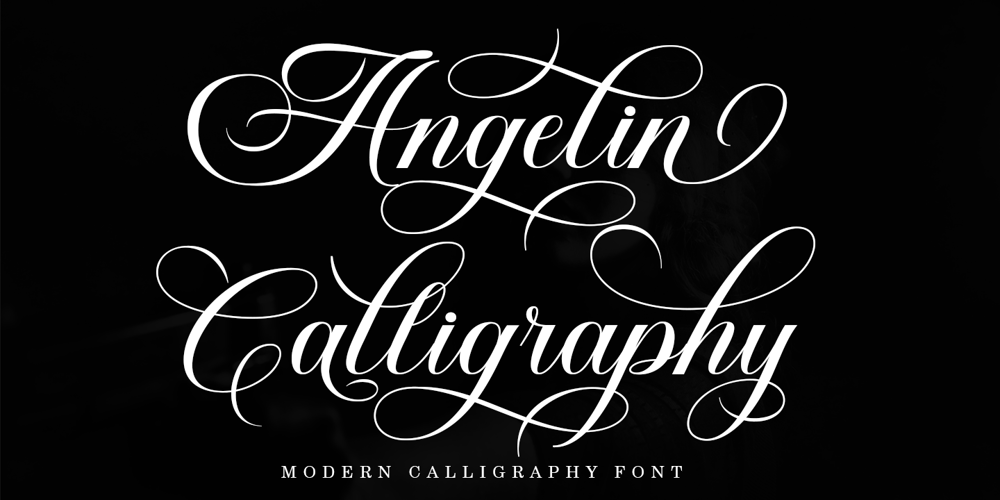
Angelin Calligraphy Font Family was designed by Zaki Muhammad and published by madjack.font. Angelin Calligraphy contains 1 styles and family package options. Angelin Calligraphy is a modern calligraphy design including Regular. This font is casual and beautiful with swashes. Can be used for various purposes. such as logos, product packaging, wedding invitations, branding, headlines, signage, labels, signatures, book covers, posters, quotes, and much more.Angelin Calligraphy includes OpenType language styling, binding, and international support for most Western languages. To enable the Stylistic OpenType alternative, you need a program that supports OpenType features such as Adobe Illustrator CS, Adobe Indesign & CorelDraw X6-X7, Microsoft Word 2010 or later versions. How to access all alternate characters using Adobe Illustrator:https://www.youtube.com/watch?v=XzwjMkbB-wQAngelin Calligraphy is encoded with PUA Unicode, which allows full access to all additional characters without having to design special software. Mac users can use Font Book, and Windows users can use Character Map to view and copy any additional characters to insert into your favorite text editor/application. How to access all alternate characters using Windows Character Map with Photoshop:https://www.youtube.com/watch?v=Go9vacoYmBwIf you need help or have any questions, let me know. I’m happy to help ๐ Thank you & Happy Designing!